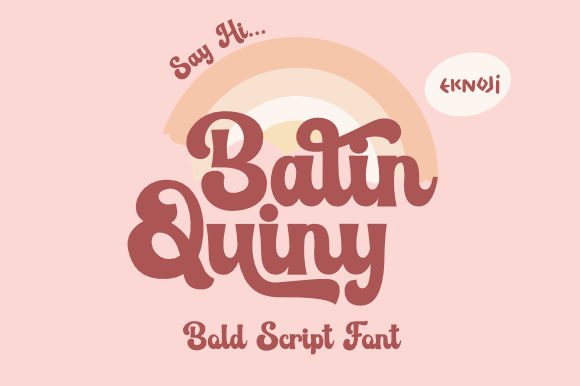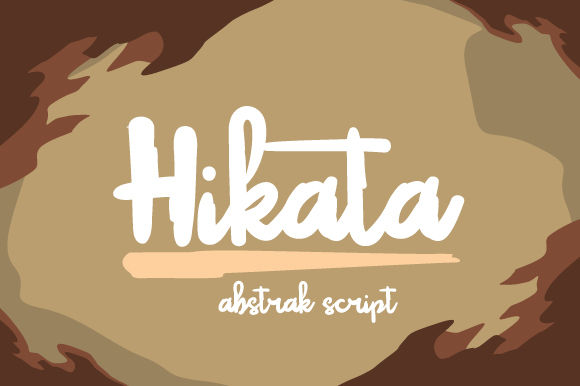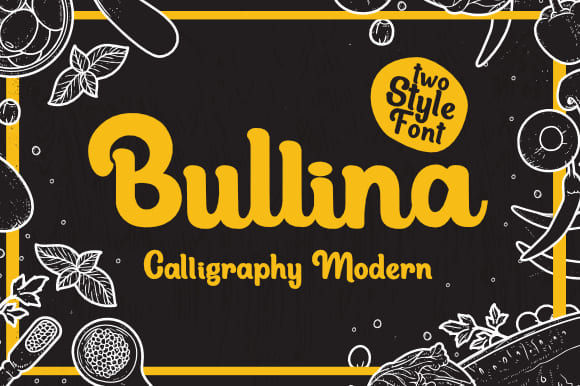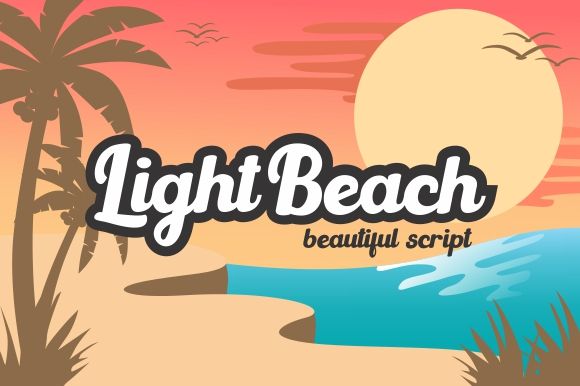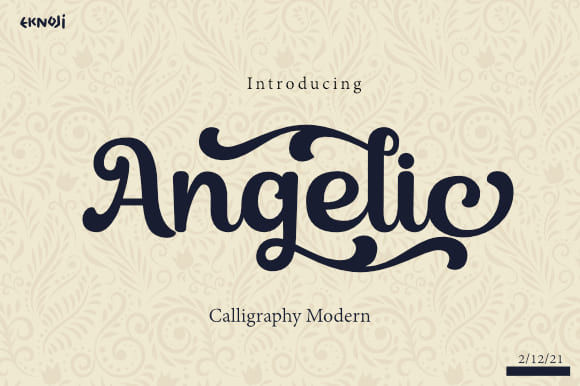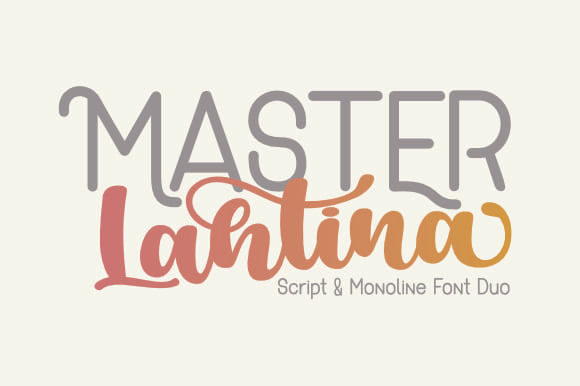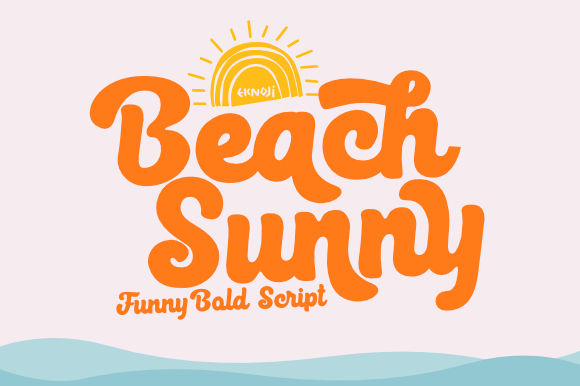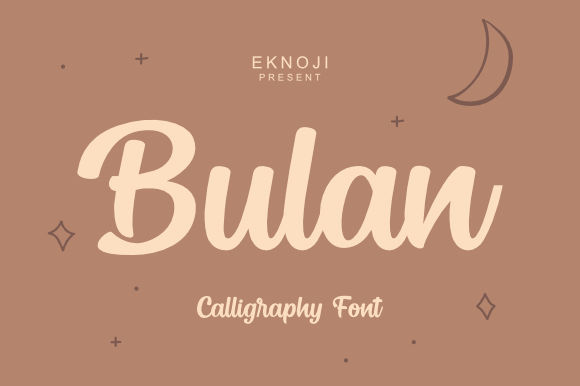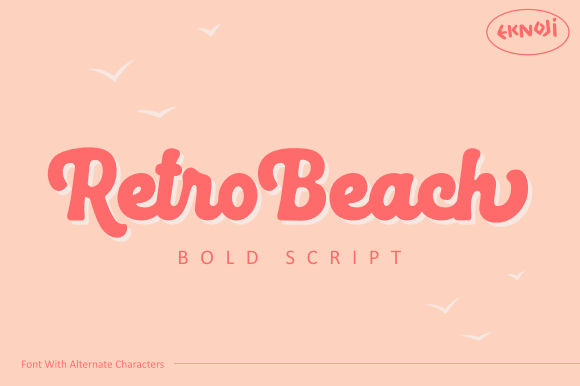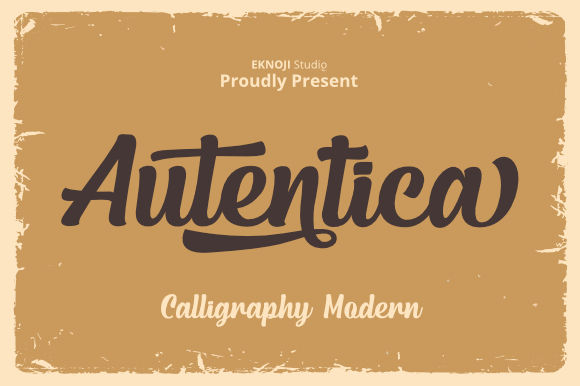
15 Bold Script Fonts for Eye-Catching Graphic Design
Designers often use script fonts to bring personality, warmth, and a human touch to their work. When these flowing letterforms are combined with thicker strokes, they create a bold and confident visual style. This is why bold script fonts are perfect for designs that aim to feel both expressive and impactful.
Curious to discover the best bold script fonts? Here are some standout options you can explore.
15 Bold Script Fonts to Elevate Your Design
The right font can say a lot about a brand, making typography an essential part of any brand guide. To help you explore this style, we have curated 15 script bold fonts that can strengthen and elevate your brand identity.
1. Balin Quiny
Balin Quiny is a bold, expressive handwritten script font featuring a retro-inspired brush style. The typeface combines smooth curves with confident strokes, creating a dynamic look that stands out in branding, headlines, and creative design projects.
2. Hikata
Hikata is a bold brush script font inspired by the natural movement of brush pen and pencil strokes. Its energetic letterforms make it ideal for display purposes such as logos, branding, product packaging, and headlines.
3. Bullina
Bullina is a modern handwritten script font with thick, flowing strokes and smooth curves. This typeface blends elegance with a playful handwritten character, creating a strong visual presence while maintaining a friendly and inviting personality.
4. Light Beach
Light Beach is a stylish and modern display font designed to bring a fresh and relaxed personality to your designs. Its smooth curves and clean structure make it suitable for eye-catching headlines, branding, and creative visual projects.
5. Angelic
Angelic is a lovely display script font that adds a lively and expressive touch to typography. With smooth curves and bold strokes, its letterforms create a cheerful appearance that brings personality and charm to any design.
6. Master Lahtina
Master Lahtina is a font duo of versatile display and handwritten typeface created to bring character and balance to modern typography. Its artistic strokes and refined structure make it suitable for branding and creative design applications.
7. Beach Sunny
Beach Sunny is one of the bold script fonts featuring smooth handwritten strokes and a relaxed, playful feel. Its flowing letterforms give typography a warm and summery personality, making it perfect for branding, packaging, and summer-themed designs.
8. Bulan
Bulan features smooth, flowing letterforms that give a natural handwritten look, making your typography feel elegant and expressive. Its soft curves and balanced strokes give the typeface a clean yet artistic look that works well across a variety of design projects.
9. Retro Beach
Retro Beach is a stylish retro-inspired script font. The playful handwritten shapes create a nostalgic beach vibe, making this font perfect for designs that need a fun, vintage, and eye-catching look.
10. Autentica
Autentica is a bold handwritten script font that stands out among modern fancy script fonts. Its strong strokes and flowing letterforms create a confident and stylish presence while maintaining a natural handwritten feel.
11. Reality Magic
Reality Magic is a stylish handwritten script font with smooth, elegant strokes. Its flowing letterforms create a natural handwritten look that gives typography a personal and expressive character.
12. Madino
Madino works beautifully for a variety of creative purposes such as branding, logos, posters, business cards, flyers, book covers, social media graphics, and advertising materials.
13. Soul Billani
Bring a cheerful and playful personality to your designs with Soul Billani, a cute display font. Its bold, rounded letterforms and handwritten feel create a friendly and expressive look that easily captures attention.
14. Galuih Script
Galuih Script is a modern script typeface that highlights the beauty of smooth lettering. Designed with clean curves and balanced proportions, it delivers a graceful handwritten appearance that feels both stylish and approachable.
15. Anhay
Anhay is a lively, expressive script font designed to evoke movement. Its flowing strokes give typography an energetic and dynamic character, making it ideal for eye-catching design projects.